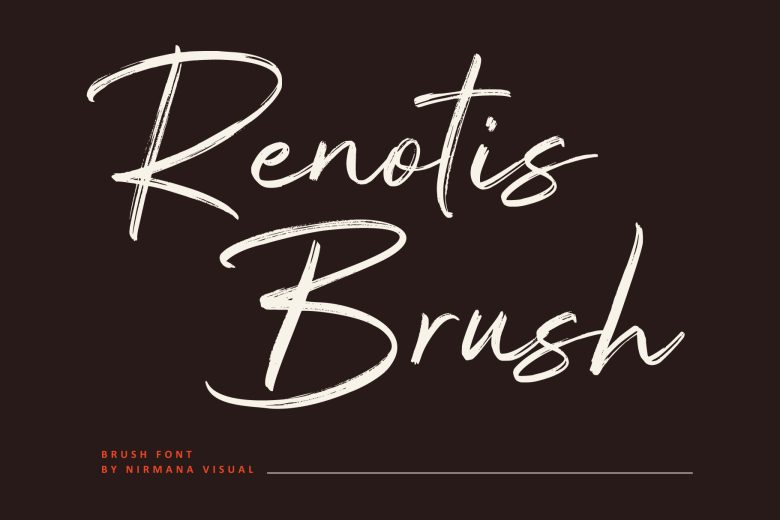
Renotis Brush Font
Renotis Brush – Brush Font offers beautiful typographic harmony for a diversity of design projects, including logos & branding, social media posts, advertisements & product designs. The free version provides all uppercase and lowercase letters and a few special characters too.